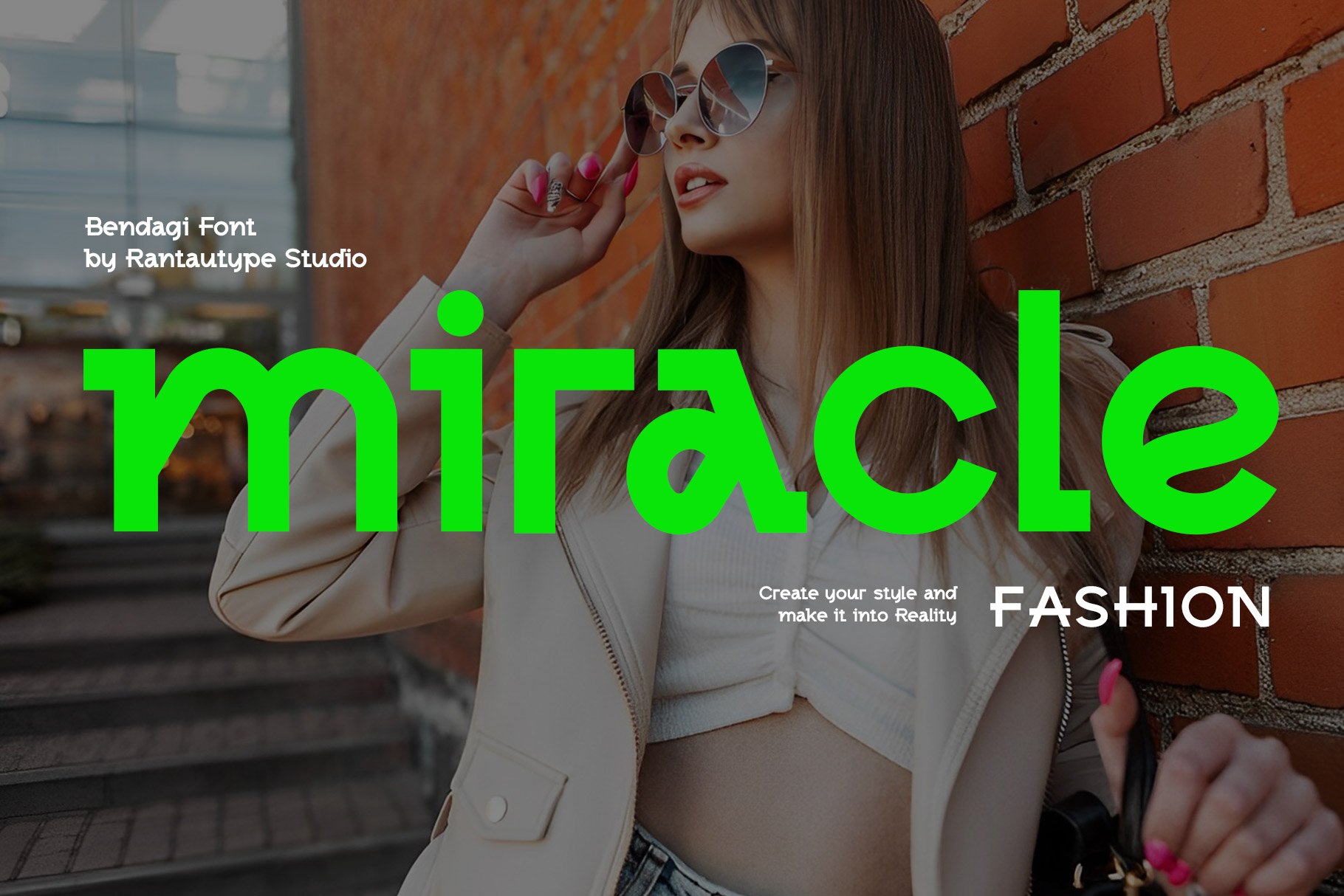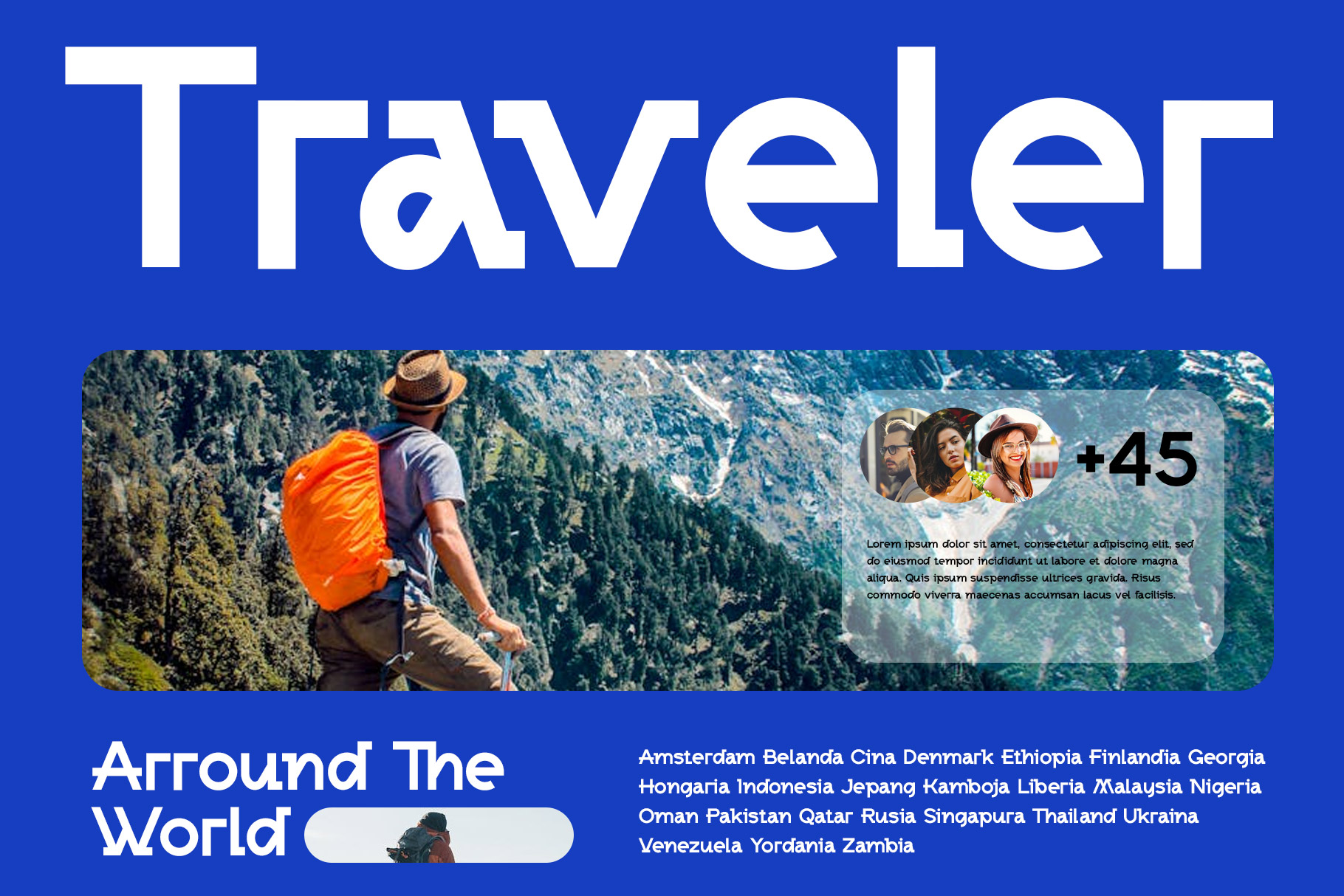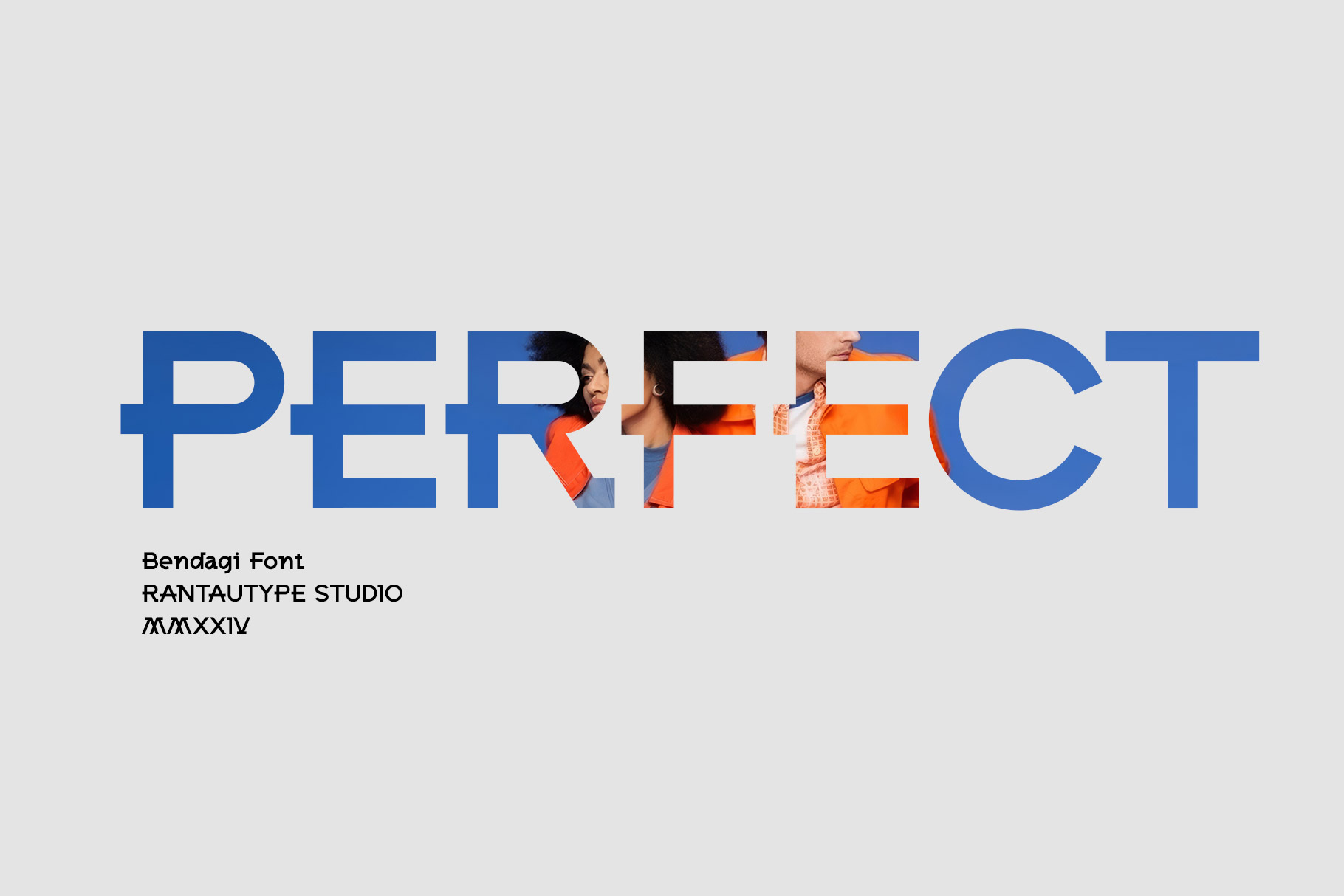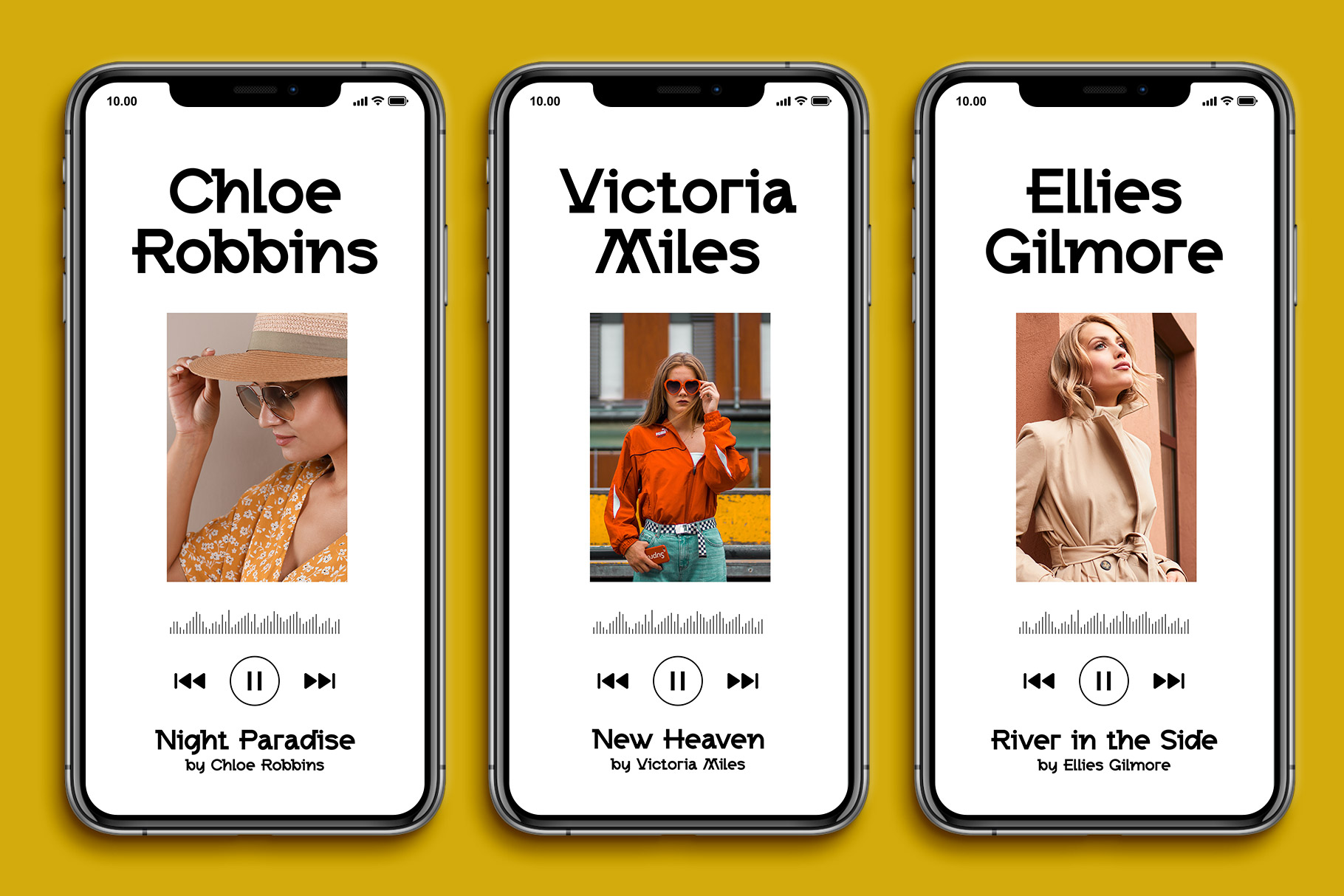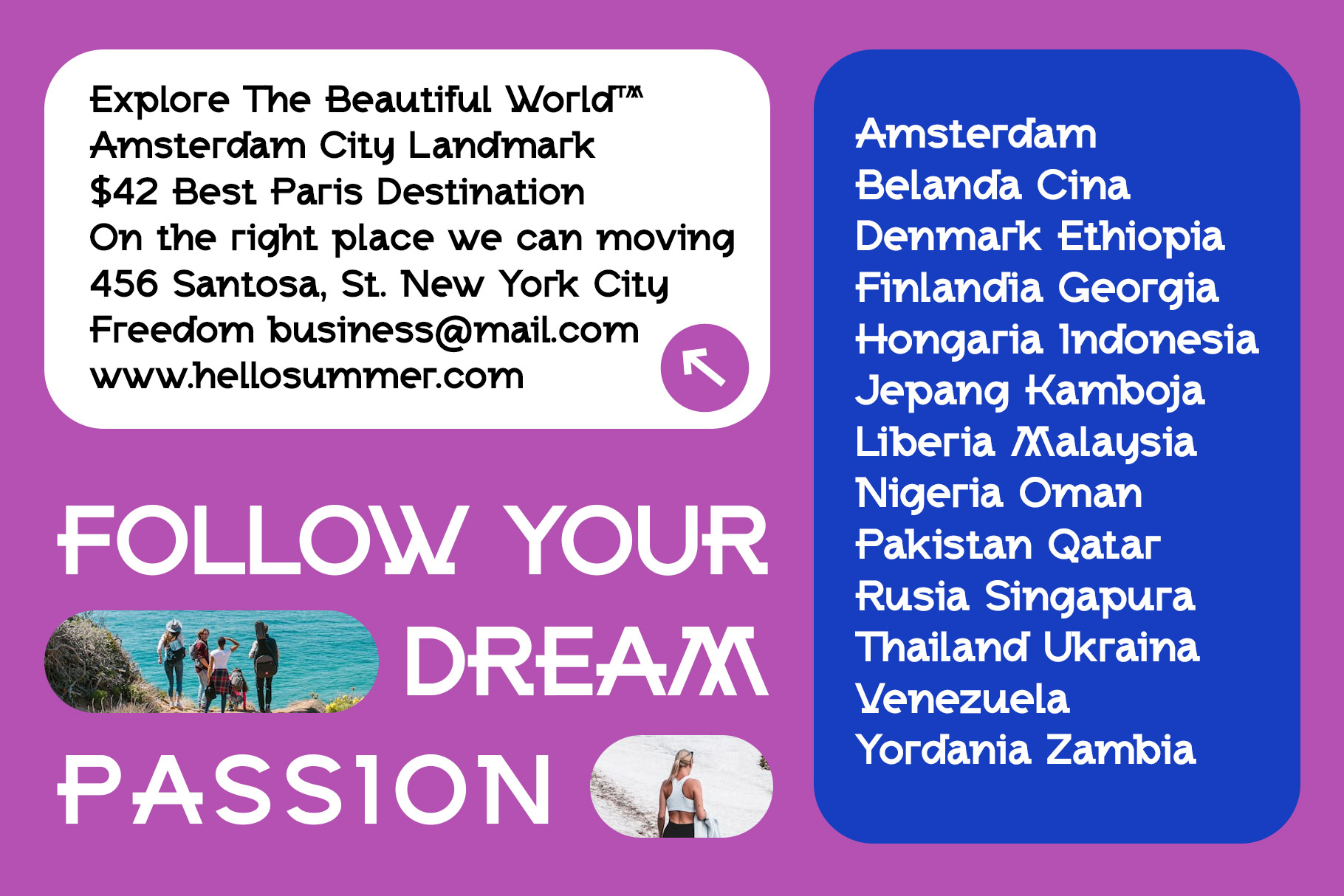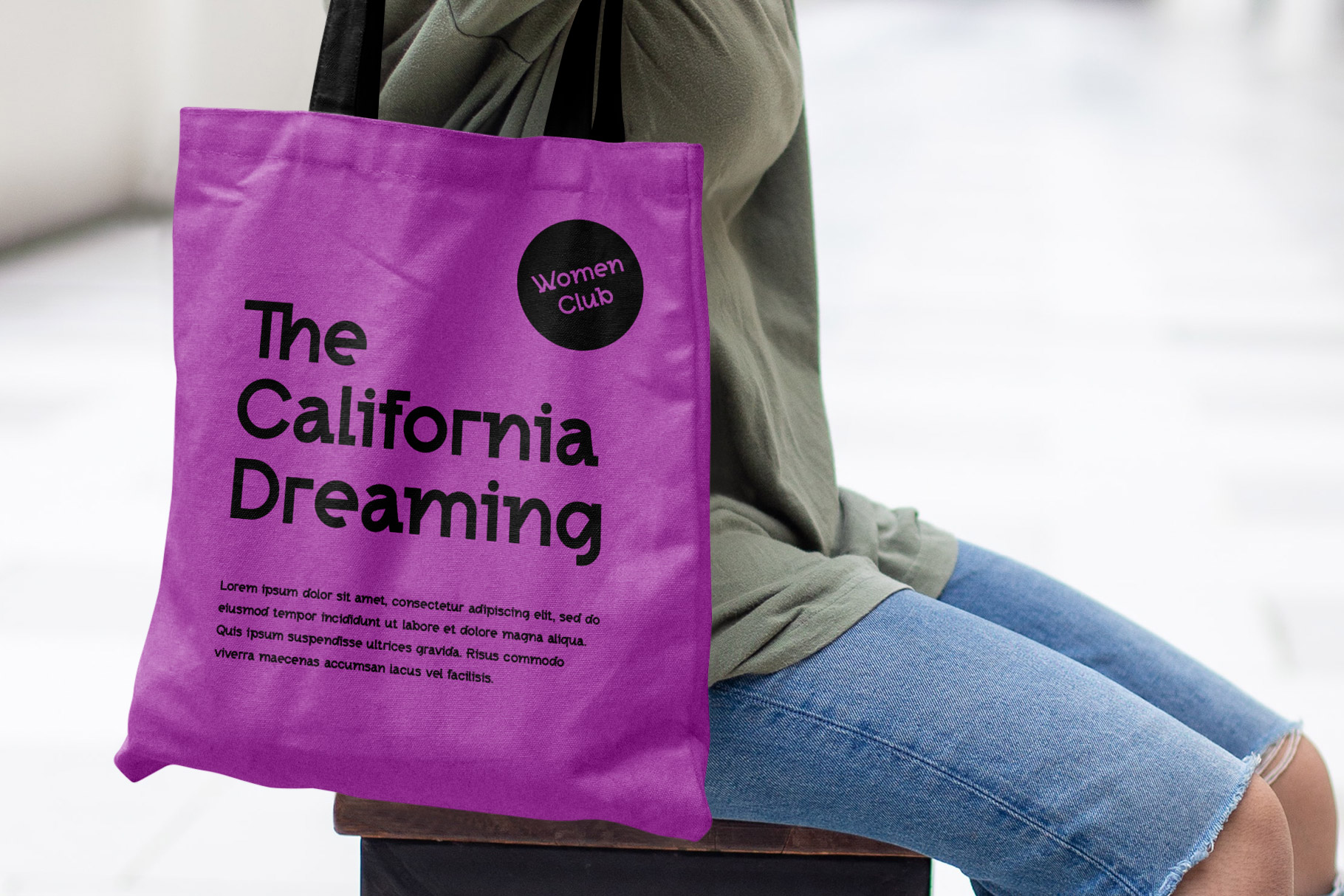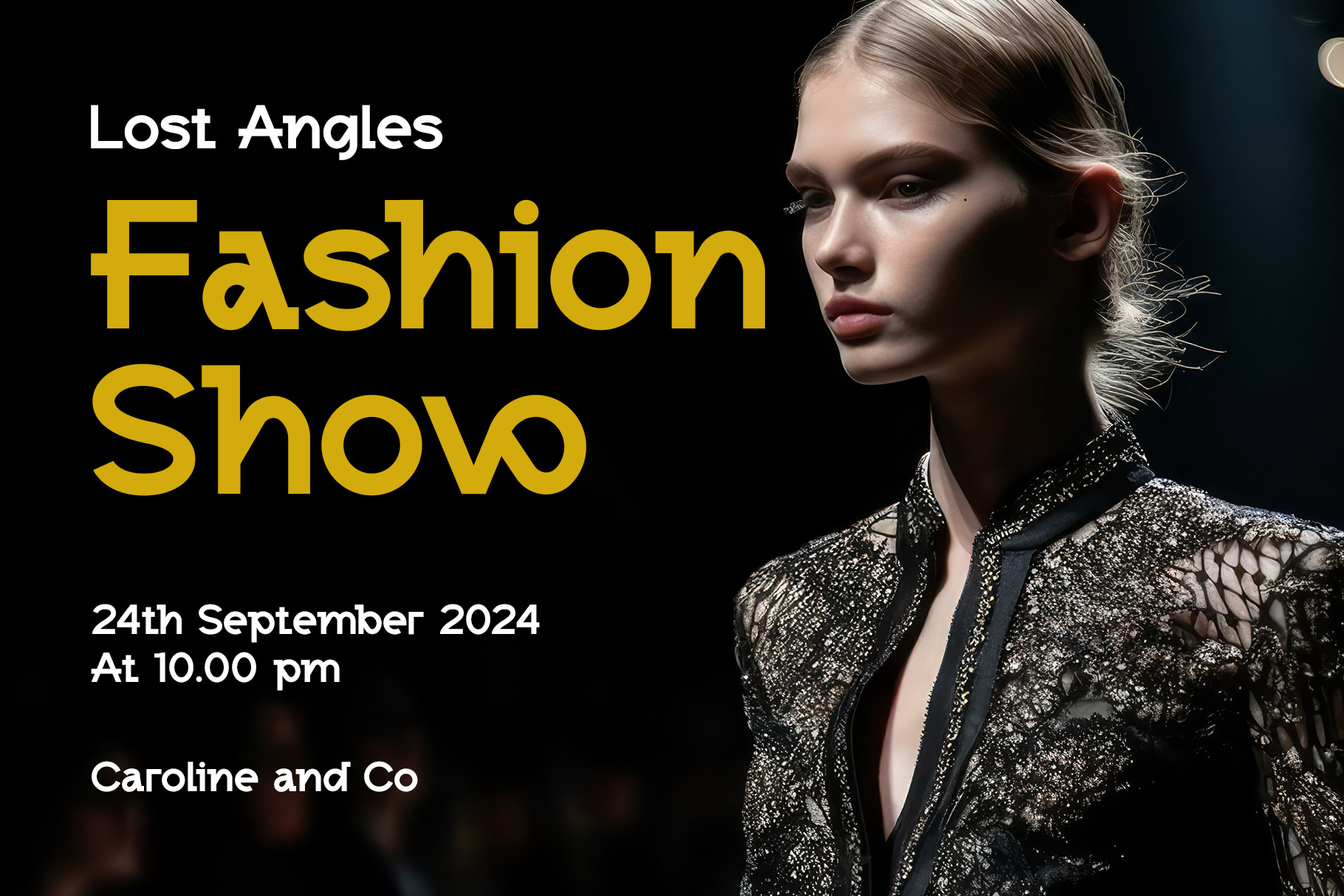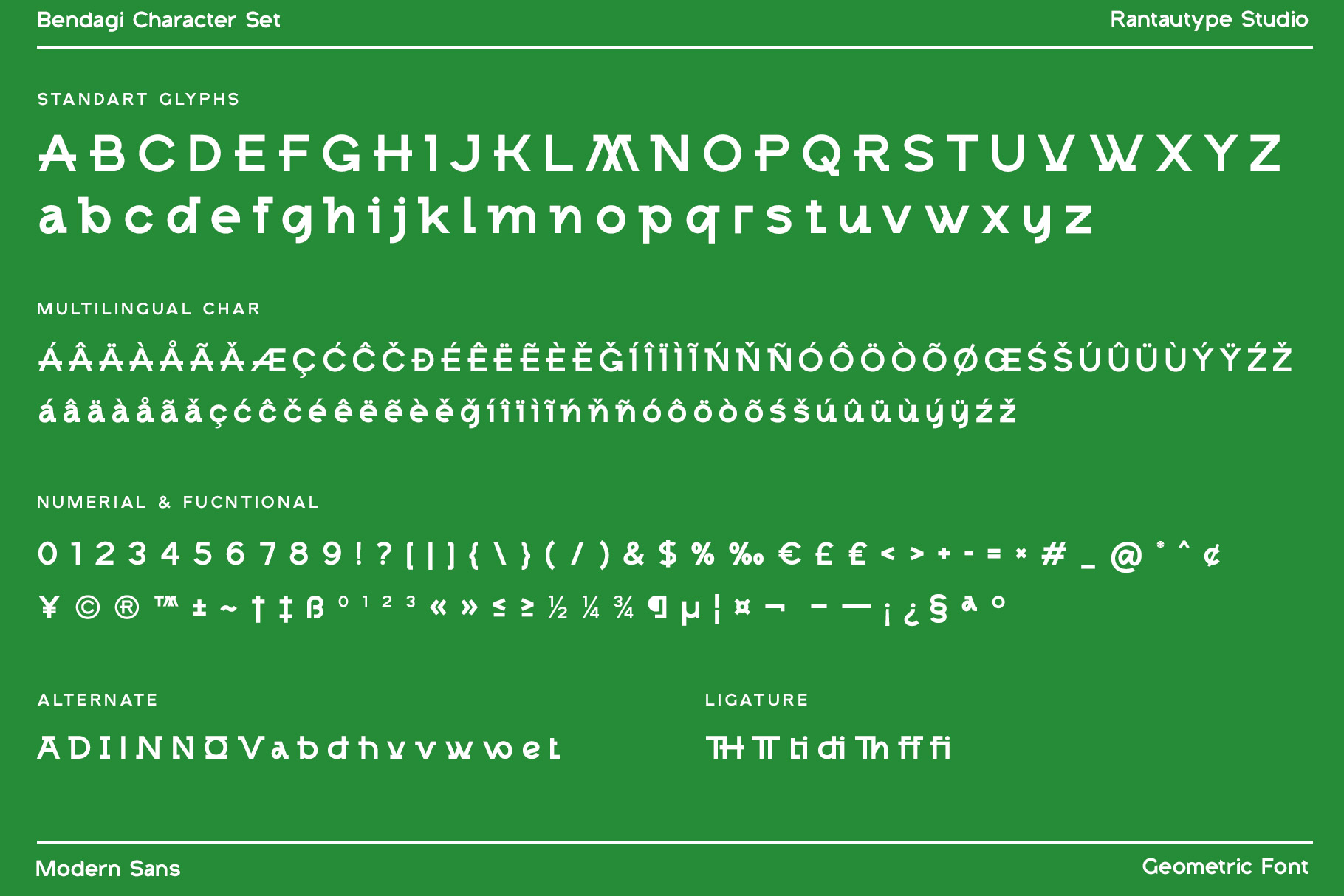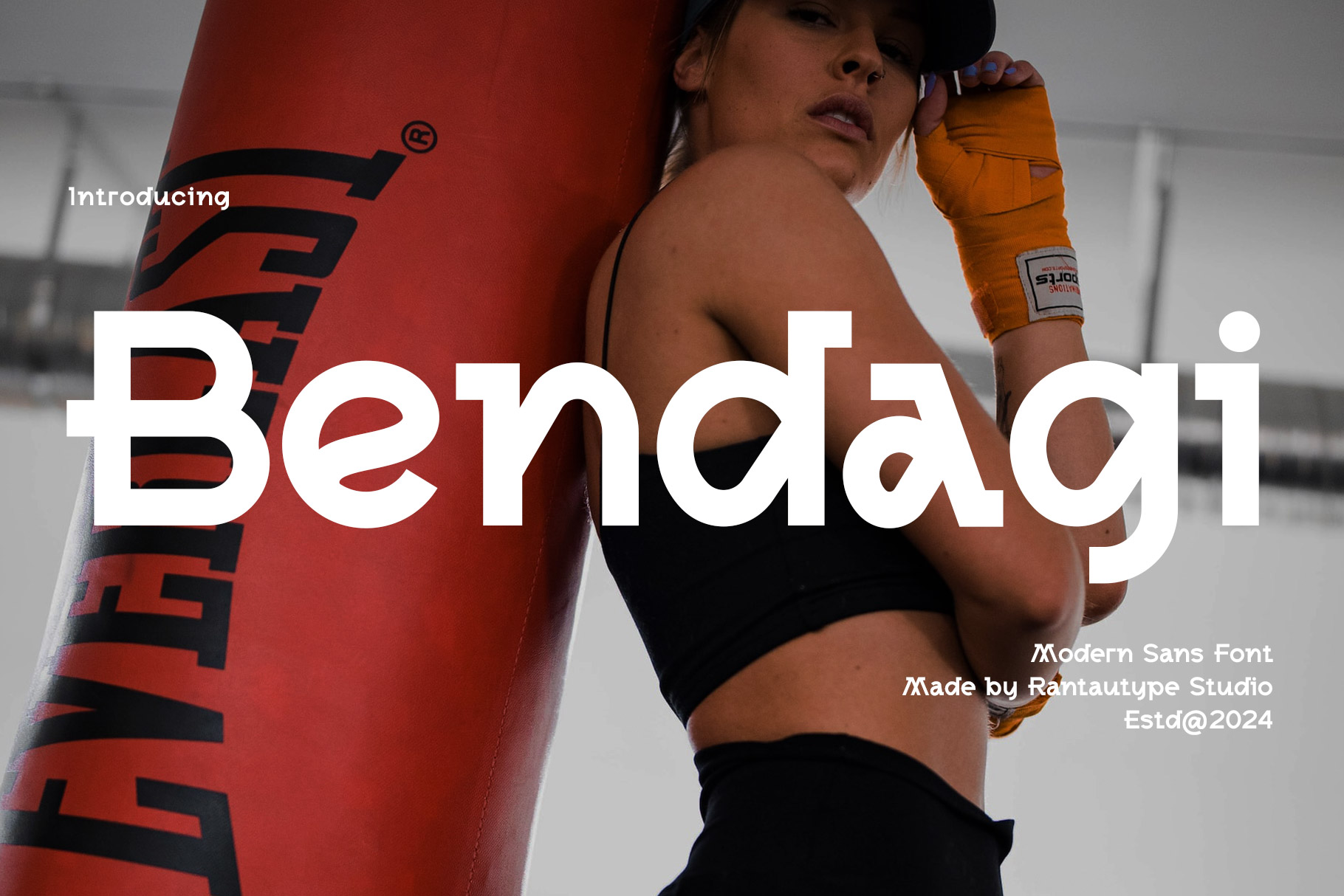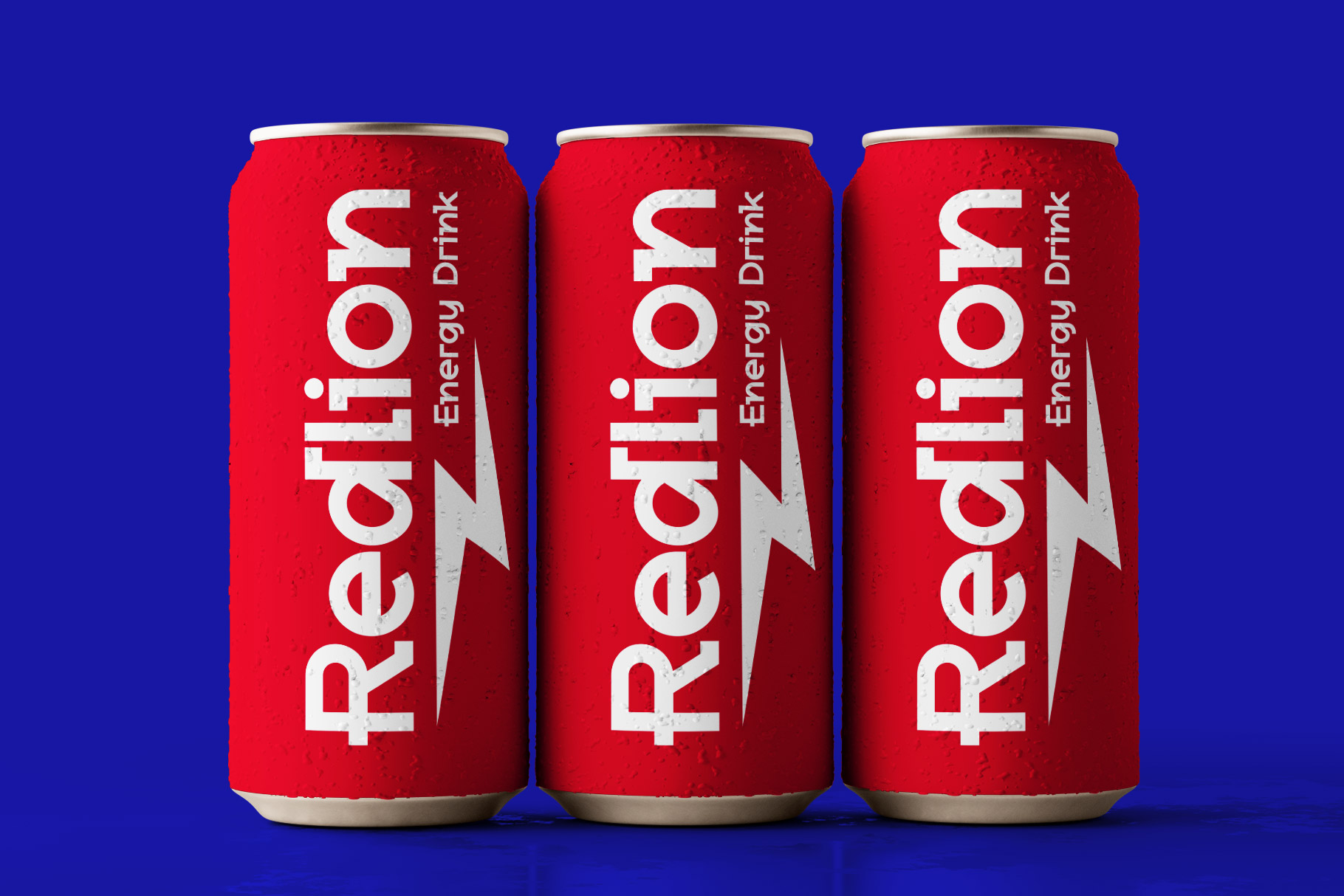
Bendagi Modern Sans Font
Recady is modern aesthetic sans serif font inspire by Geometric and Neo-grotesk visual design. Recady come with contrast and power of a display and ease of legibility. We keep this font look modern, fashionable, elegant, sporty, futuristic, minimalist and easy to use.
Recady is a perfectly choice for any creative endeavor, chic, lifestyle design such as logotype, advertisements, watermark on photography, stationery, branding project, display and magazine, invitation, corporate brand, product design, label, business project and many other project with modern or industrial touch.